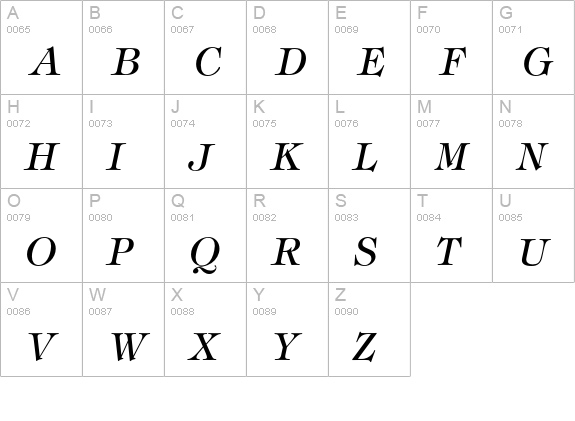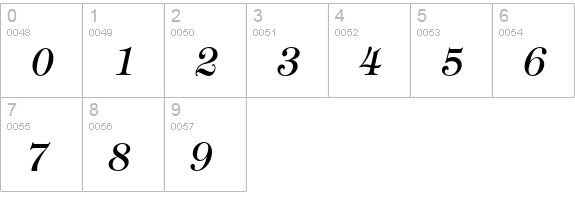
TiffanyEF-MediumItalic is a stunning font that exudes elegance and sophistication. With its gracefully slanted and flowing letterforms, this typeface adds a touch of finesse to any design project. The medium weight of the font strikes the perfect balance between boldness and subtlety, making it suitable for a wide range of applications. This font is perfect for adding a touch of luxury to branding materials, editorial designs, wedding invitations, and more. Its italicized style adds a sense of movement and dynamism, making it particularly well-suited for conveying a sense of energy and creativity. What makes TiffanyEF-MediumItalic even more enticing is that it is freely available to download at FontsMarket.com. This means that designers and enthusiasts can easily access and use this font without any cost. Whether you are a professional designer or a hobbyist, this font offers you the opportunity to elevate your designs without breaking the bank. With its generous x-height and carefully crafted details, TiffanyEF-MediumItalic stands out as a versatile and visually appealing font. Its smooth curves and delicate serifs create a harmonious balance, making it a joy to read and work with. Whether used for headlines, body text, or accents, this font adds a touch of sophistication and elegance to any project. So, if you are looking for a font that combines style, versatility, and accessibility, look no further than TiffanyEF-MediumItalic. Download it for free at FontsMarket.com and unlock a world of design possibilities. Whether you are designing for print or digital, this font will surely leave a lasting impression on your audience.